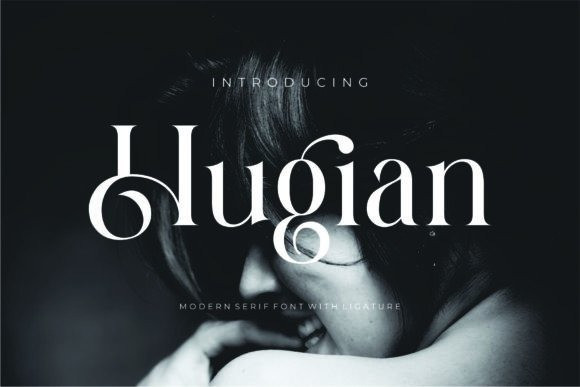
Hugian Font
Hugian Font is an elegant serif font, inspired by the famous minimalist logo perfect for the purposes of designing templates, brochures, videos, advertising branding, logos, invitation, layout design, elegant crafting, beauty design and more.